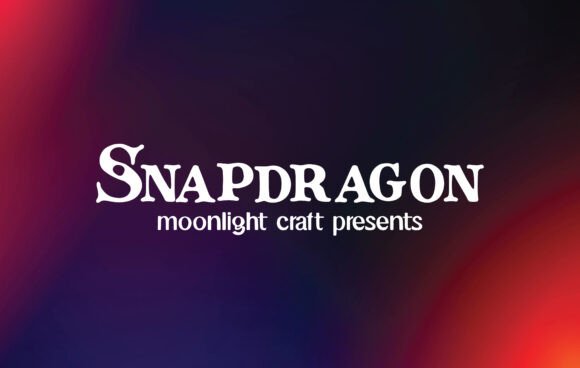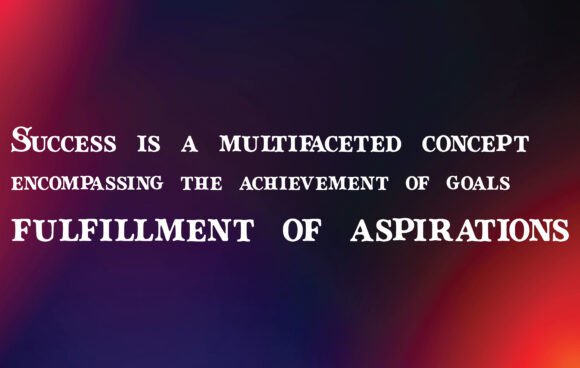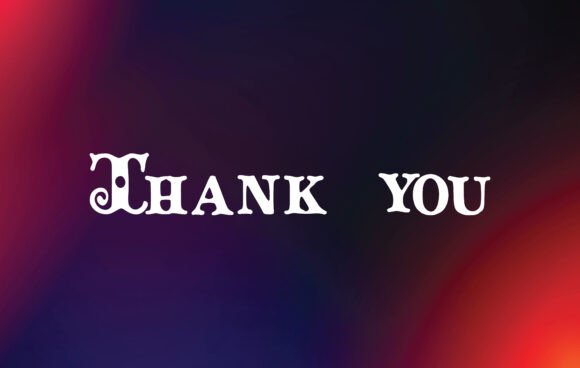
Snapdragon Font: Elegant Serif for Modern Logo Design & Branding
About the Snapdragon Font
Step up your design game with Snapdragon Font, a font that exudes confidence and style. This font is crafted to become a go-to favorite in your collection, offering the perfect blend of style and versatility to elevate any creative project.
It’s easy to read and works beautifully for both titles and body text. Whether you’re designing magazine headlines, t-shirts, social media posts, branding materials, wedding invitations, or greeting cards—this font fits right in.
Snapdragon Font Usage Examples
Snapdragon Font Example